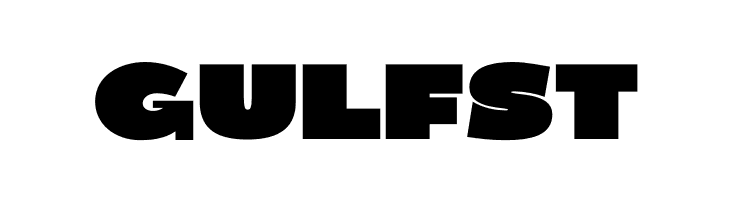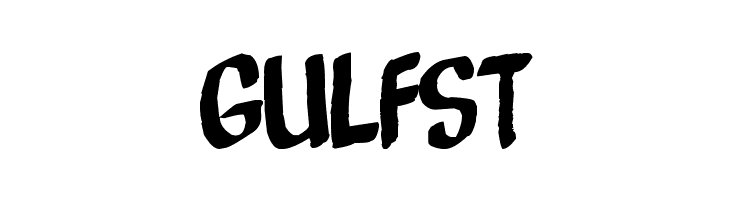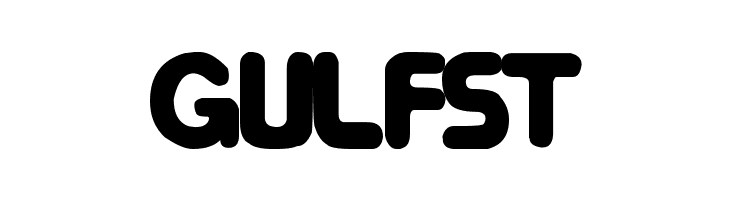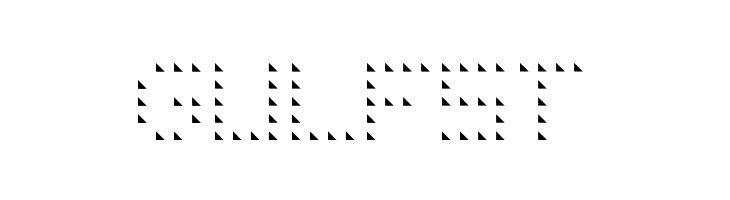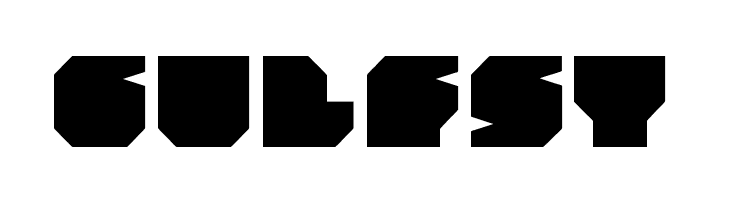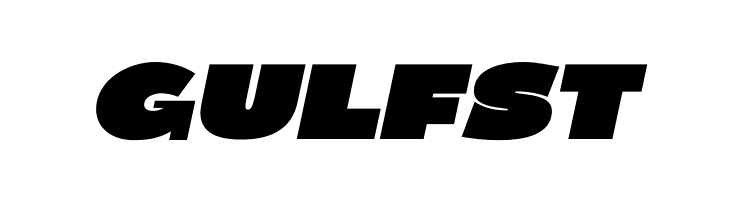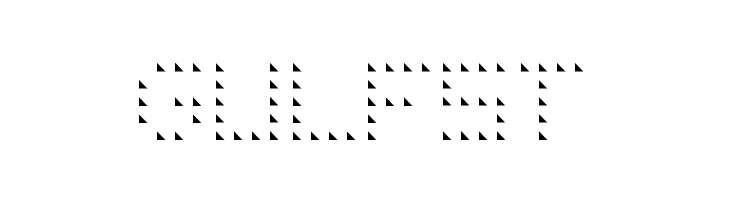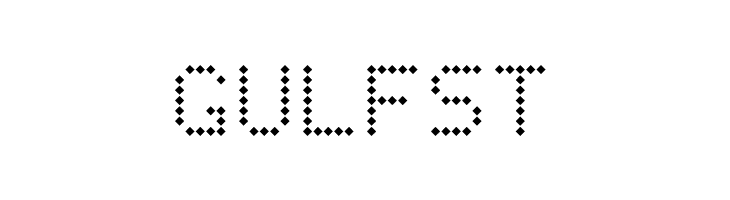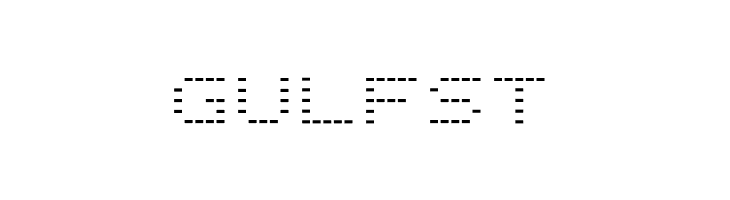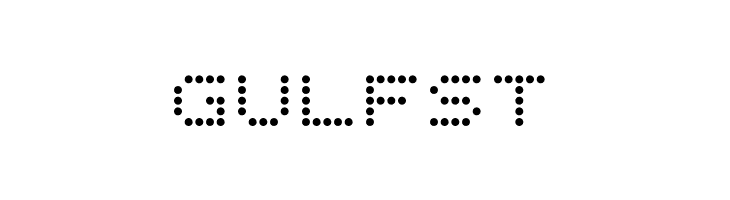
A decorative font with characters designed to look like bones, perfect for spooky themes.
A pixelated, blocky font with a retro digital aesthetic.
A geometric, triangular pixel-style font with a modern digital aesthetic.
A bold, rounded font with a modern and playful style.
A bold, geometric font with thick strokes and strong visual impact.
A bold, heavy font with wide, robust characters and rounded edges.
A bold, italicized font with high contrast and tight spacing, perfect for impactful designs.
A modern, dotted font with a playful and digital aesthetic.
A bold, dotted font with a modern, pixelated style.
A modern, dotted font with a playful and minimalist design.
A dotted, digital-style font with a retro aesthetic.
A modern, pixelated font composed of diamond-shaped dots, perfect for digital and retro designs.
A decorative font with characters formed by diamond-shaped dots, offering a pixelated look.
A dotted, pixelated font with a geometric and digital appearance.
A pixelated font composed of diamond-shaped dots, offering a digital and modern look.
A bold, diamond-dotted font with a pixelated, geometric style.
A light, dotted font with characters formed by diamond-shaped dots, offering a modern and decorative style.
A dotted font with a digital, retro aesthetic.
A dot matrix style font with a retro digital display aesthetic.
A dotted, geometric font with a digital, pixelated style.
A dot-based, pixelated font with a retro digital style.
A modern, dot-based font with a retro digital display aesthetic.
A pixelated, bold font with a retro digital aesthetic.
A modern, dotted font with a geometric and playful design.
A dot matrix style font with uniform spacing and a modern, tech-inspired look.
A modern, dotted font with a playful and bold appearance.
A modern dotted font with a digital, tech-inspired aesthetic.
A modern, dot-based font with a geometric, pixelated style.
A bold, geometric font made of diamond-shaped dots, offering a modern and artistic style.
A modern, dotted font with a unicase effect and geometric design.
A modern, dotted font with a digital, tech-inspired style.
A modern, dotted font with a digital, pixelated aesthetic.